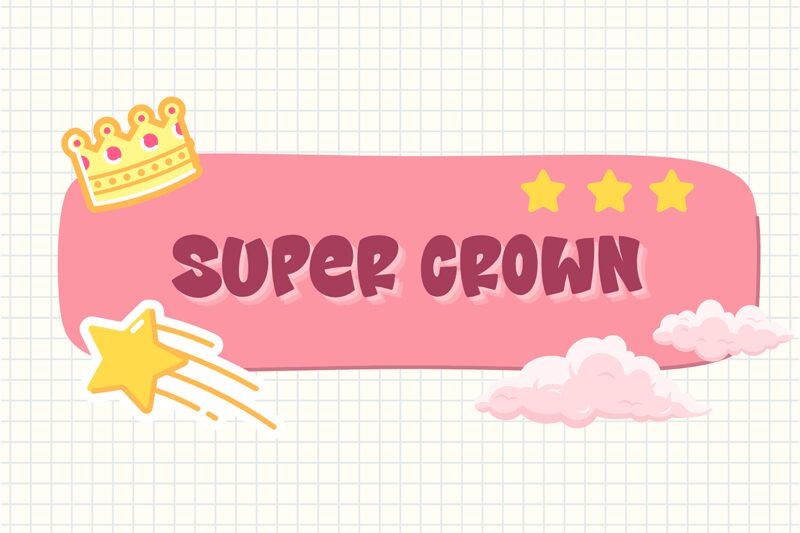
Super Crown font is a free cartoon font designed by fsuarez913. The decorative typeface has a vibrant, playful, and whimsical style with round, cheerful letterforms that are presented in text in a playful manner. It can also be modern and even informal. Its celebratory inspiration is shown by the unconventional design of the characters.
Super Crown will make a cool addition to any funny children’s book cover or it can be used to decorate birthday party invitations and posters. Use it for cartoons, video games, movie posters, and much more.